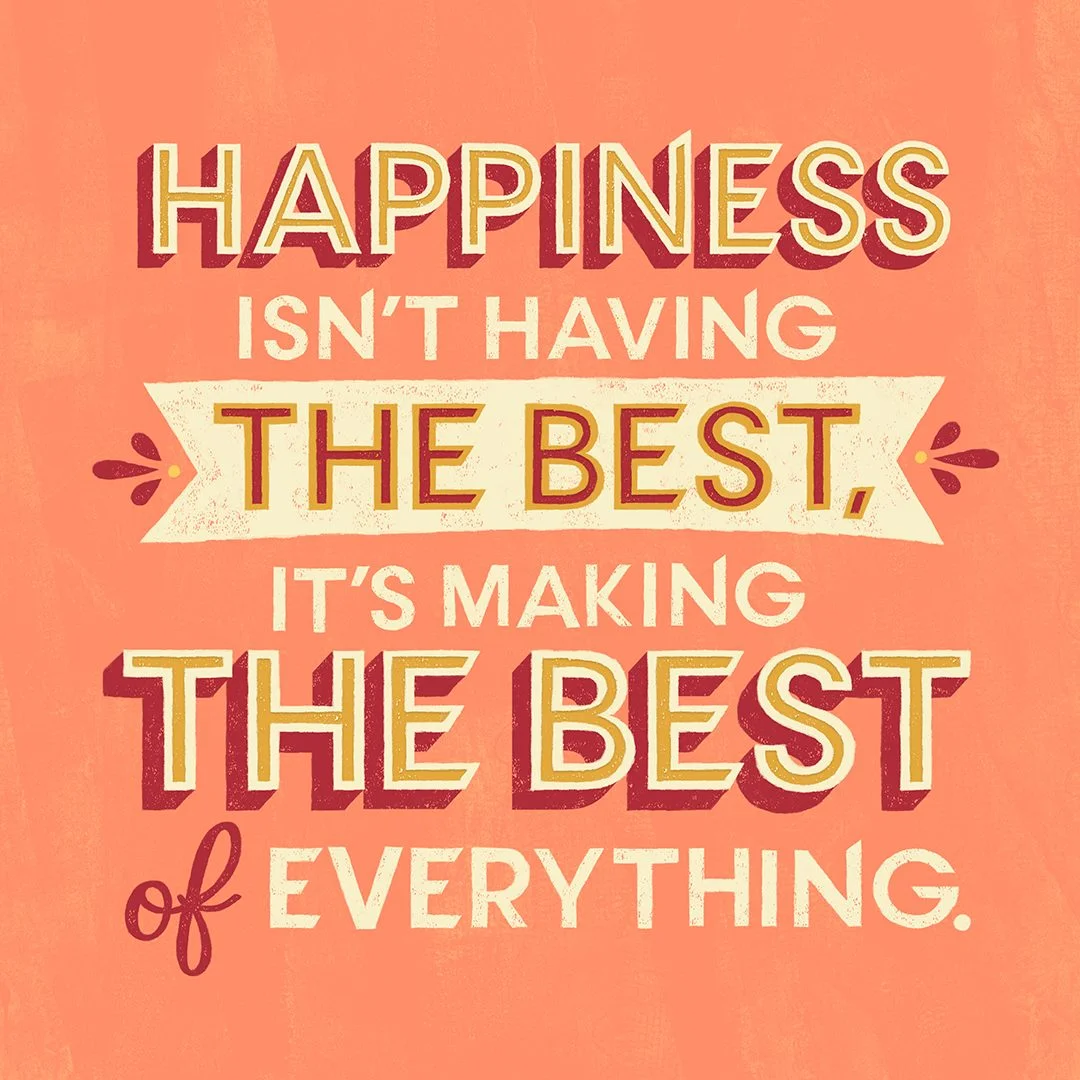
Happy Monday! Today I'm sharing a few recent social media posts from Hallmark and Think.Make.Share. which have featured my artwork. This quote was created for a larger project which I can't wait to share, and I crafted the dimensional watercolor rose in the top left corner of the lower photo, as well as the tailored numbers on one of Hallmark's 2018 planners. I hope your week is off to a great start, I'm ready to dive right back in to making.